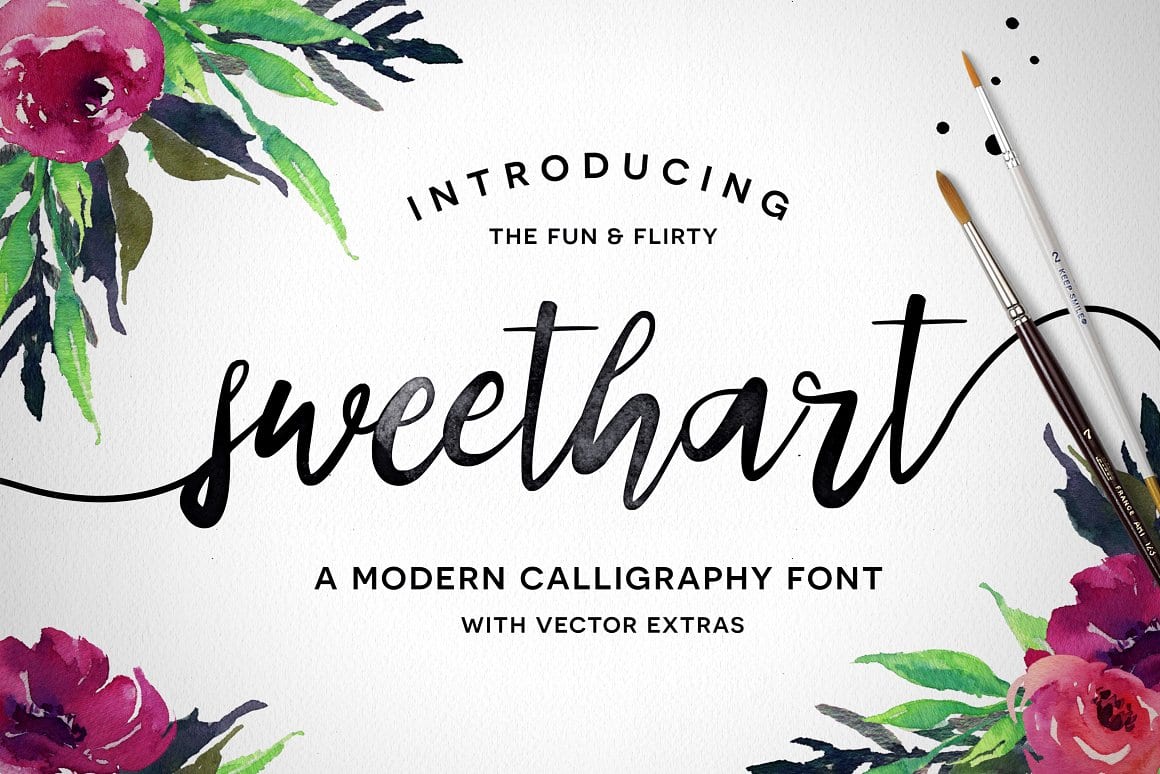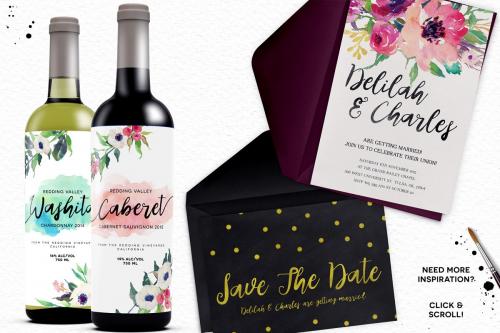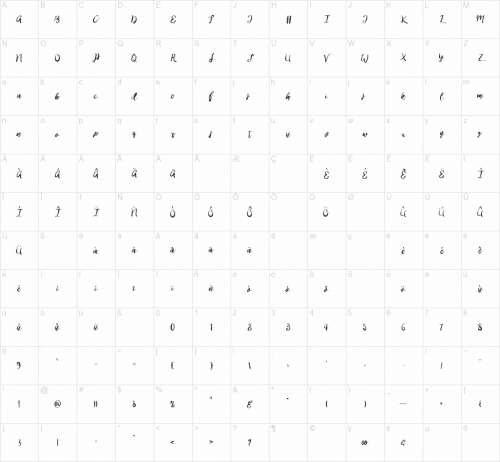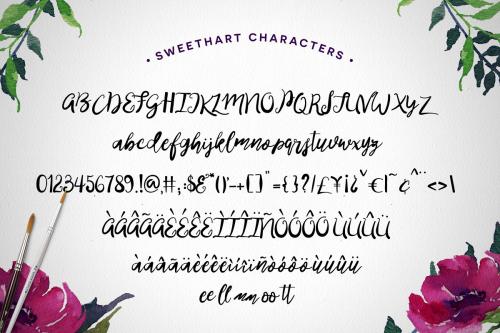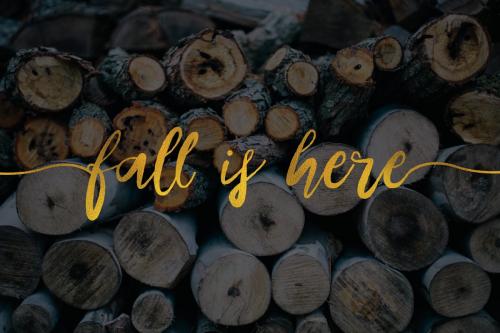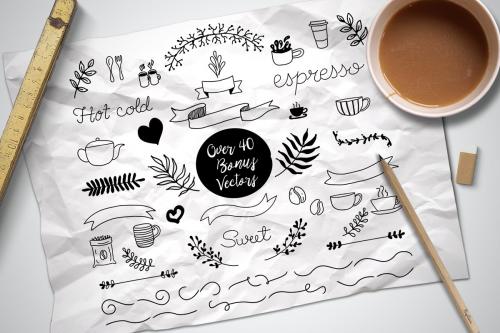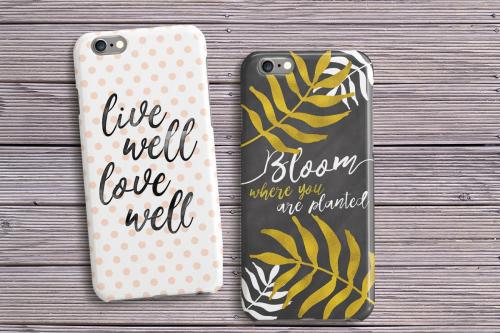
Sweethart is a fun & flirty script font with some rad bonuses! It’s fat-to-thin brush strokes and imperfect baseline give it a fun and stylish aesthetic perfect for typography, branding, logo design, invitations, and prints.
- Designer: Flycatcher Design